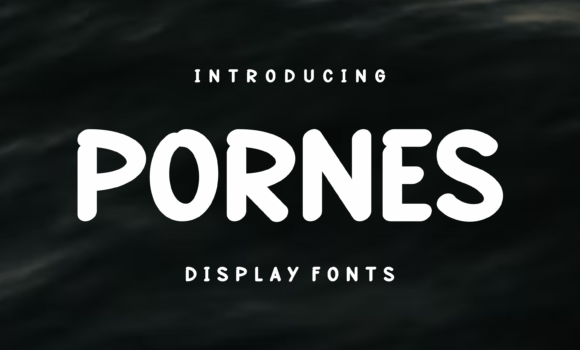
pornes
Pornes Font – Free Download Introduction to Pornes Font Pornes is a bold display font, perfectly suited on for branding, name cards, posters, logos, magazine, covers, banners, t-shirt and headers, or even large-scale artwork and so much more. 📸 Preview